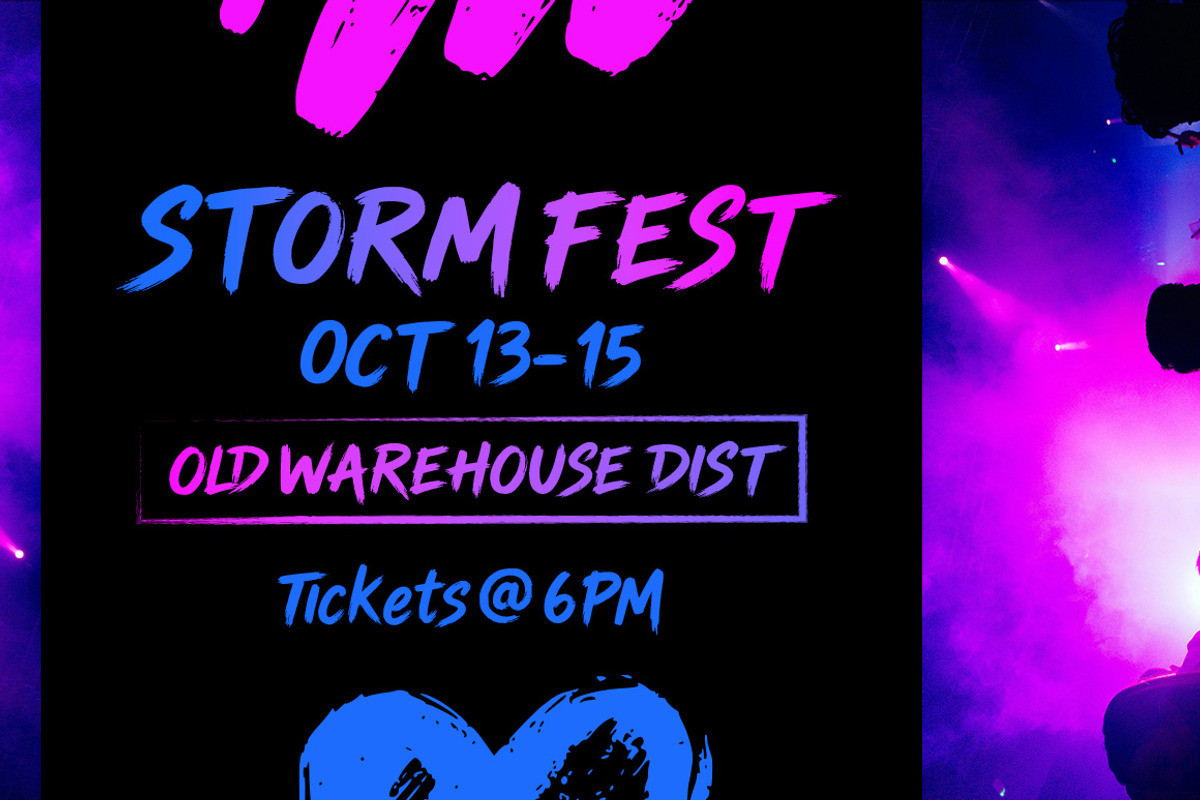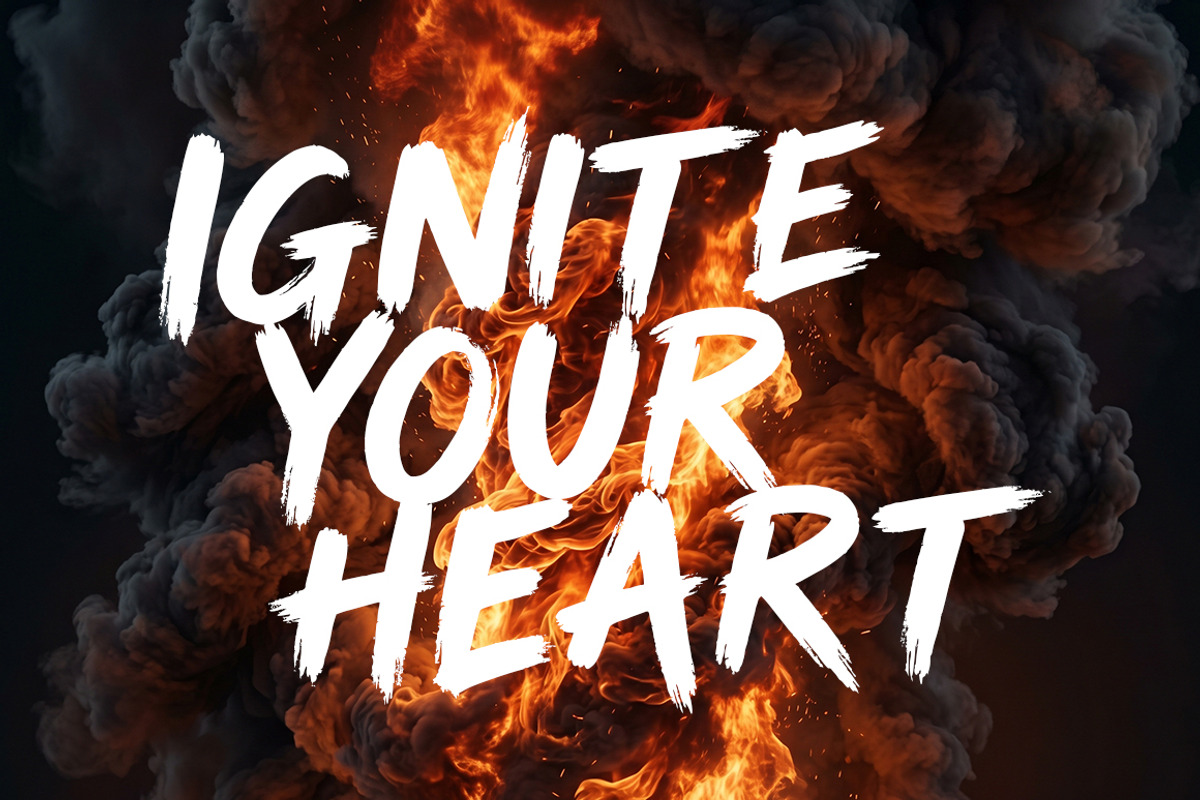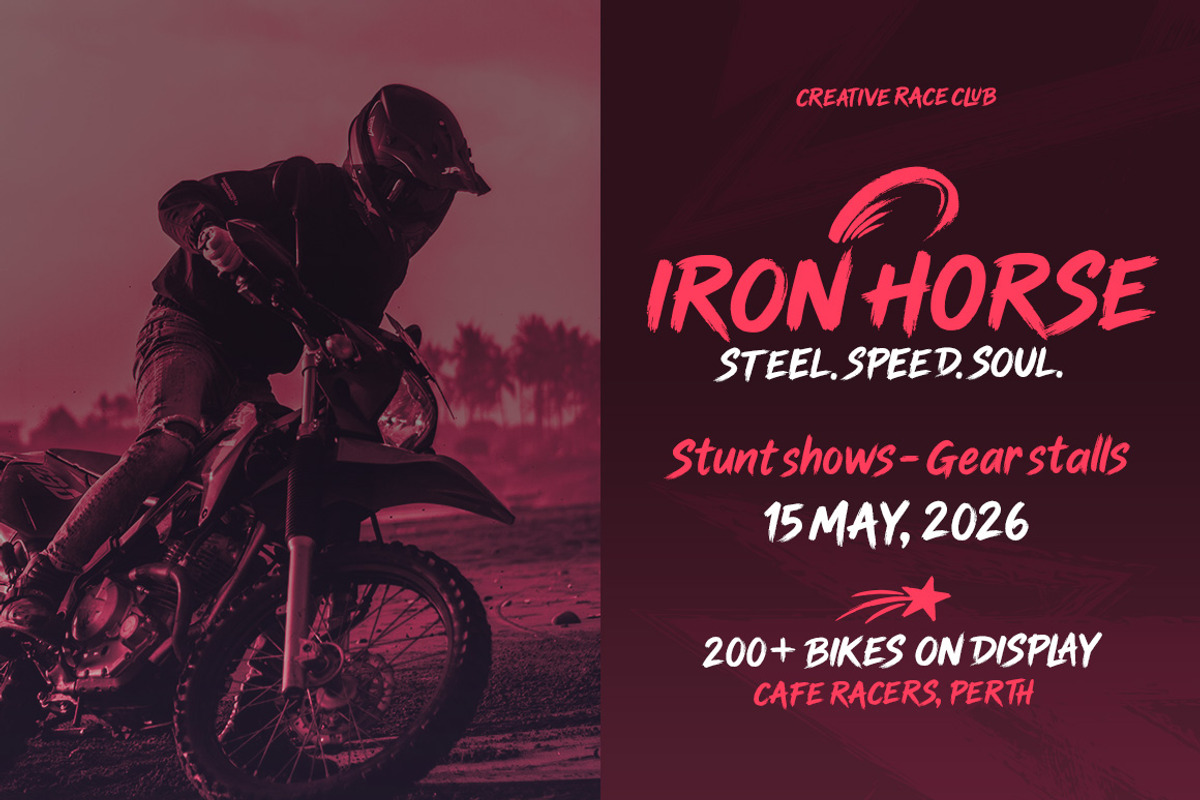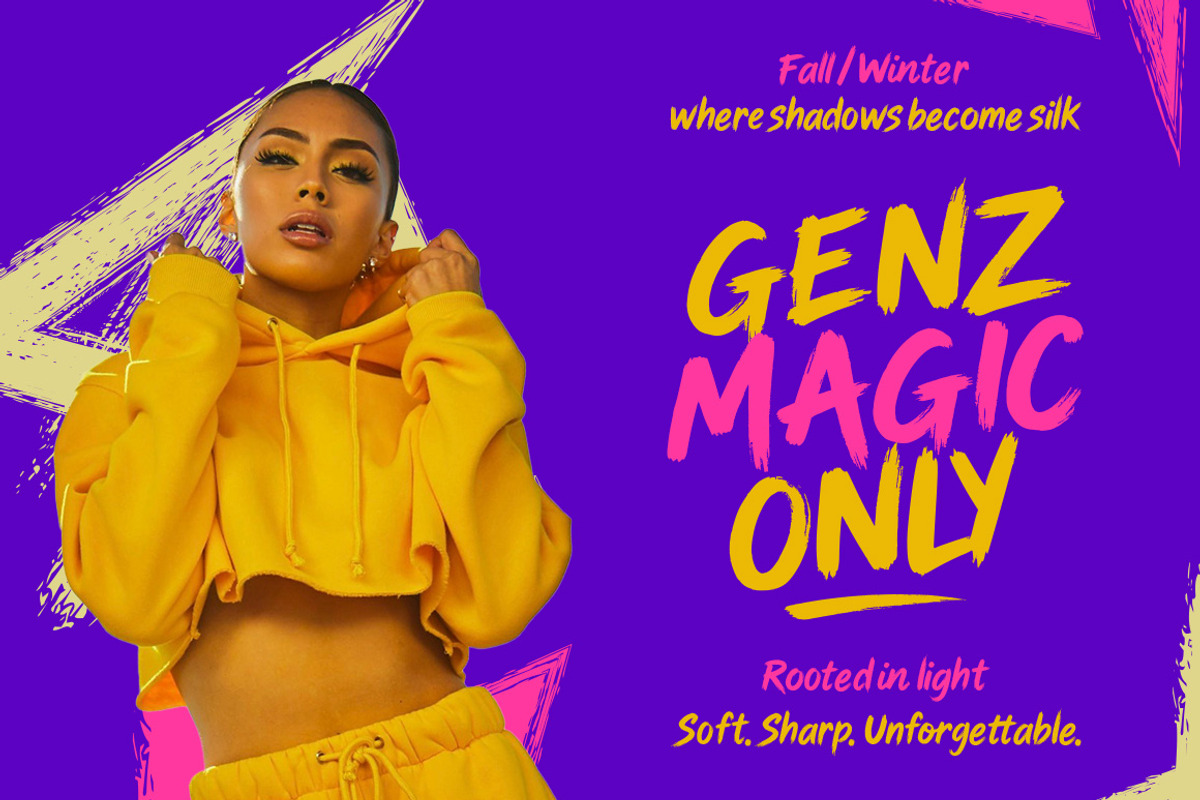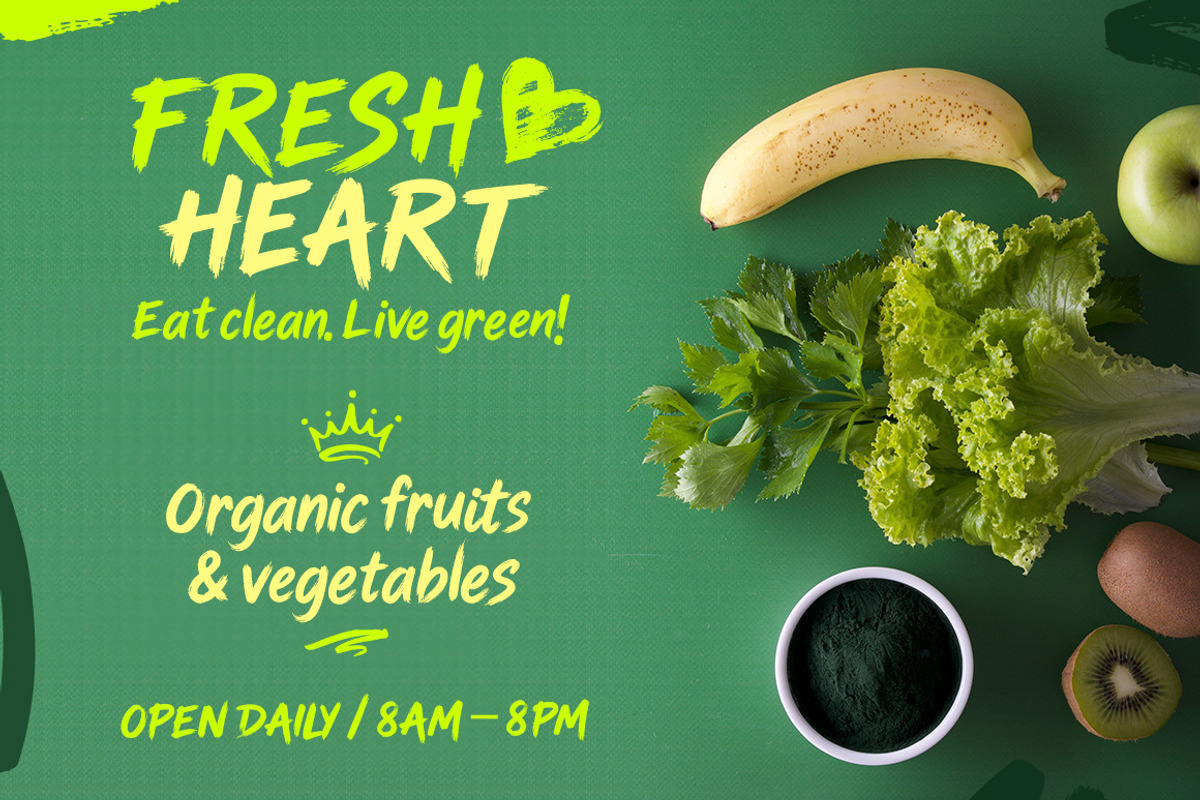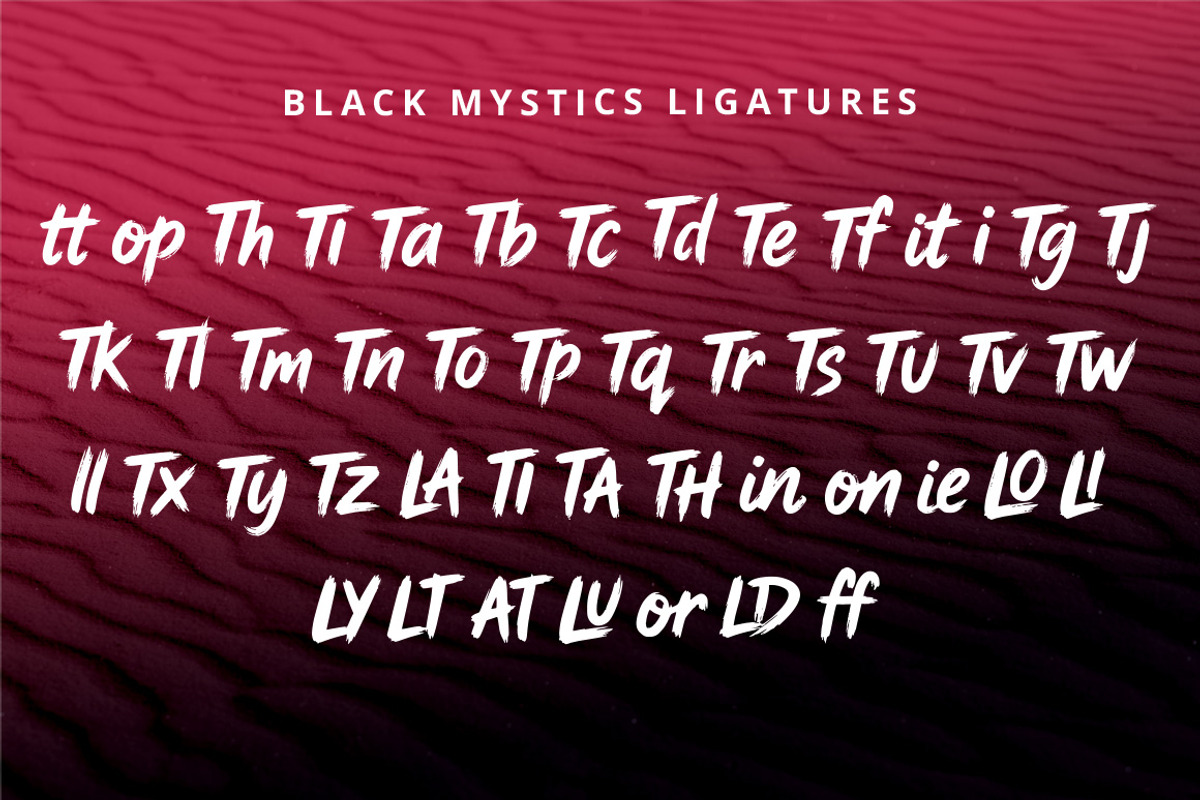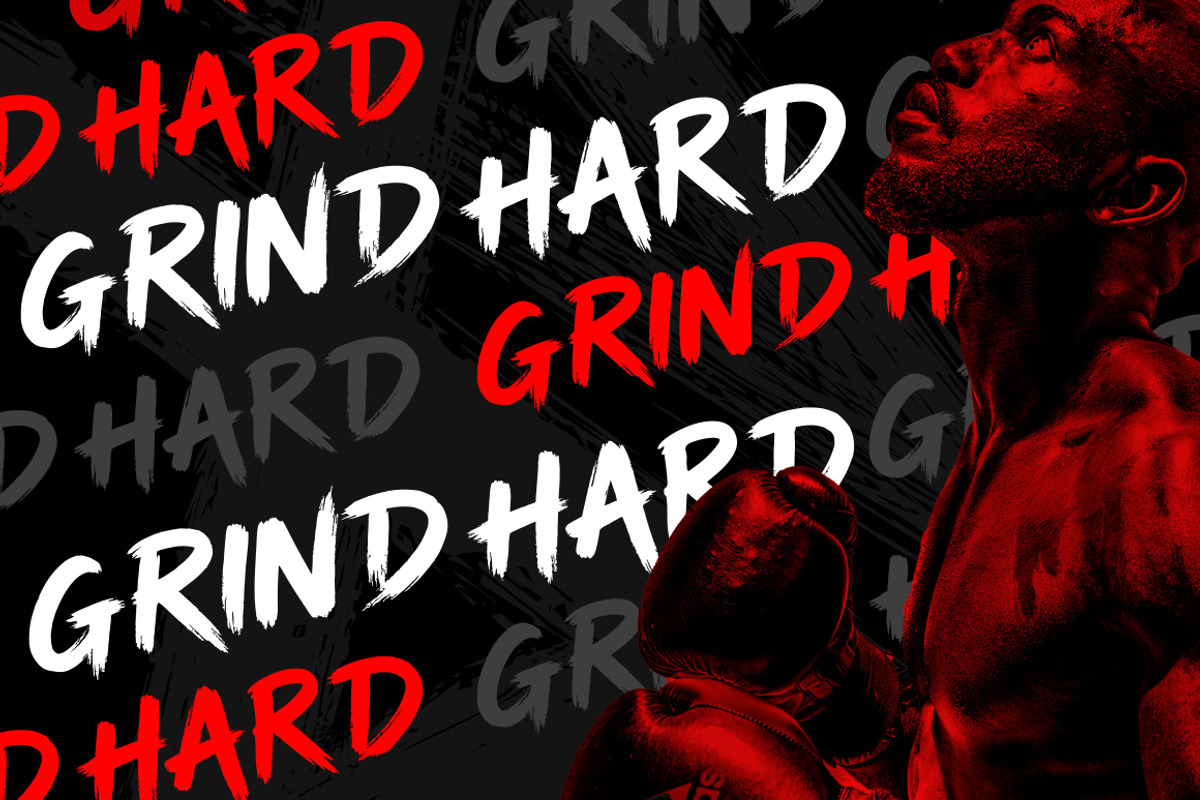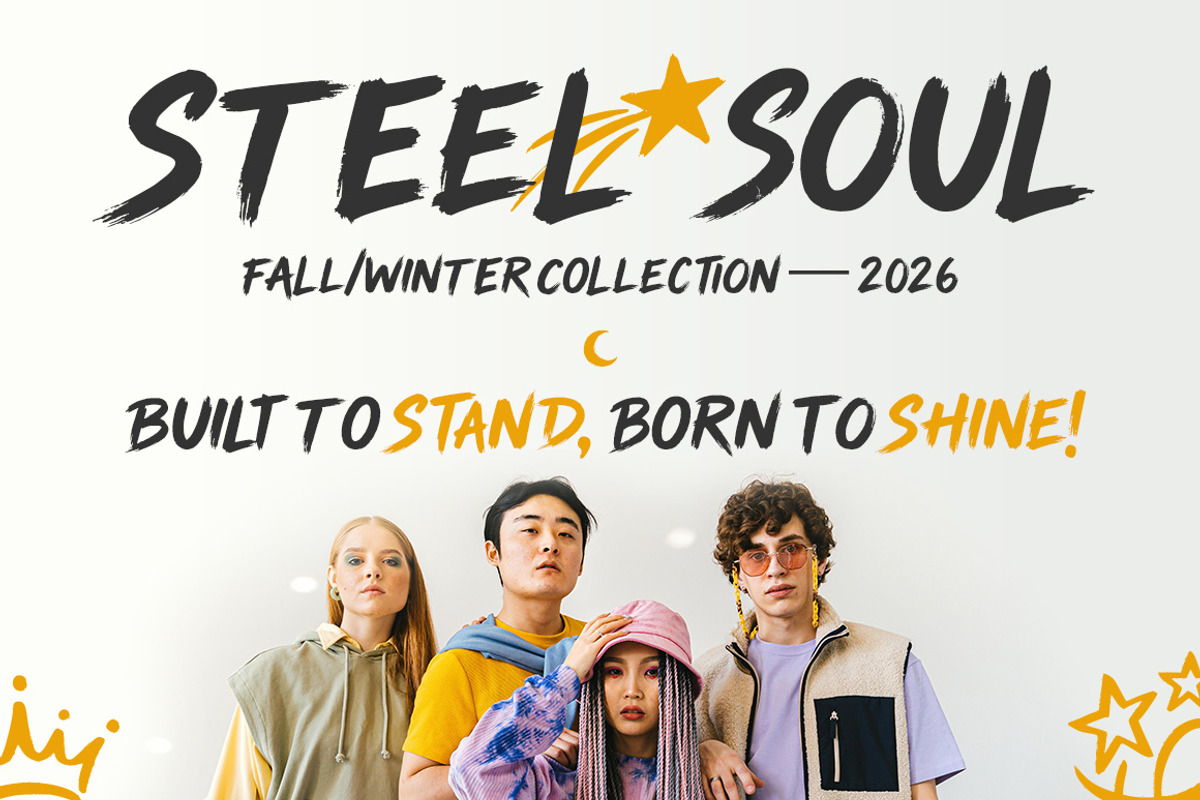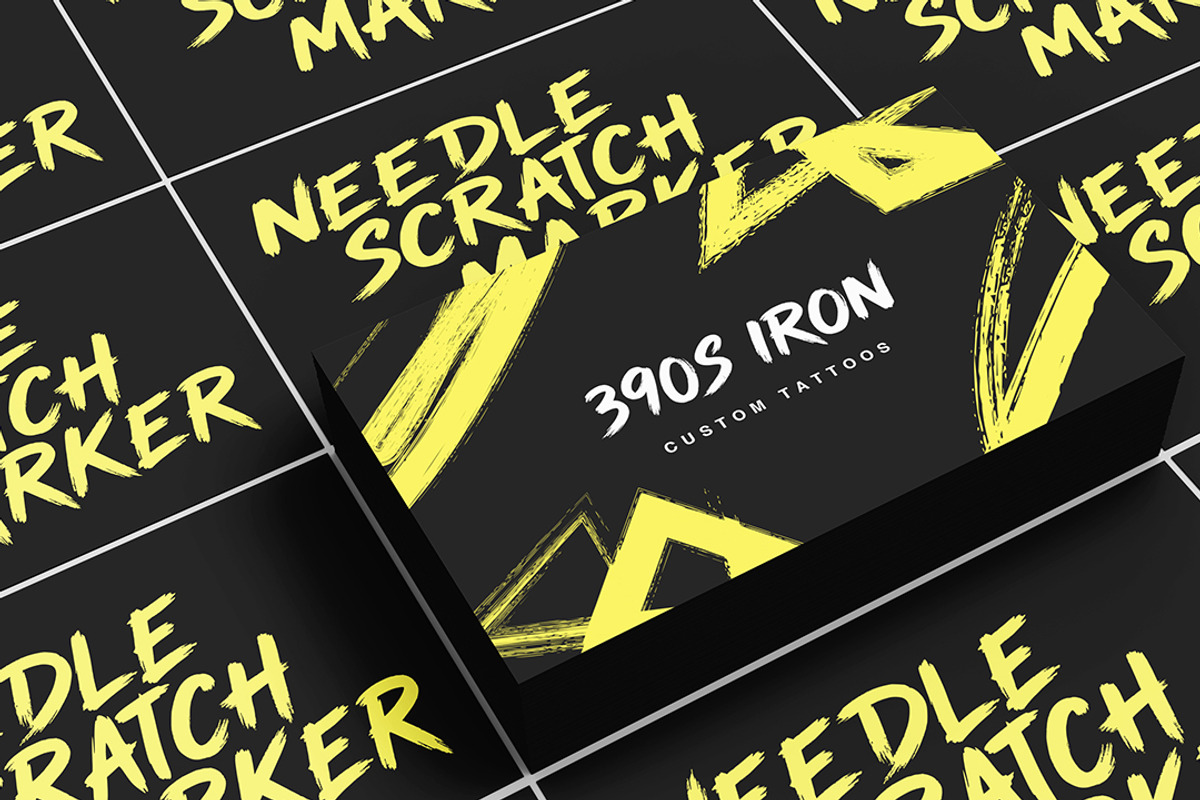
Black Mystics Raw Brush Display Font
Black Mystics is a bold raw brush display font built for designs that need attitude, movement, and impact. With rough hand-painted strokes, sharp edges, and energetic letterforms, this font is made to grab attention fast.
It works especially well for posters, apparel designs, streetwear graphics, sports branding, music events, festival flyers, food packaging, product ads, social media banners, logos, quotes, and bold editorial layouts.
The previews show its strongest use cases clearly: high-energy gym graphics, fashion campaigns, concert posters, summer promotions, food ads, travel banners, skincare branding, wedding stationery, and expressive merch designs. The font has enough aggression for urban and sports projects, but it can also feel playful, casual, or stylish depending on the colour palette and layout.
Multilingual Support: ÀÁÂÃÄÅÆÇÈÉÊËÌÍÎÏÐÑÒÓÔÕÖØÙÚÛÜÝßàáâãäåæçèéêëìíîïðñòóôõöøùúûüýÿ
Use Black Mystics when your design needs a loud, confident, handmade brush style with real visual punch.